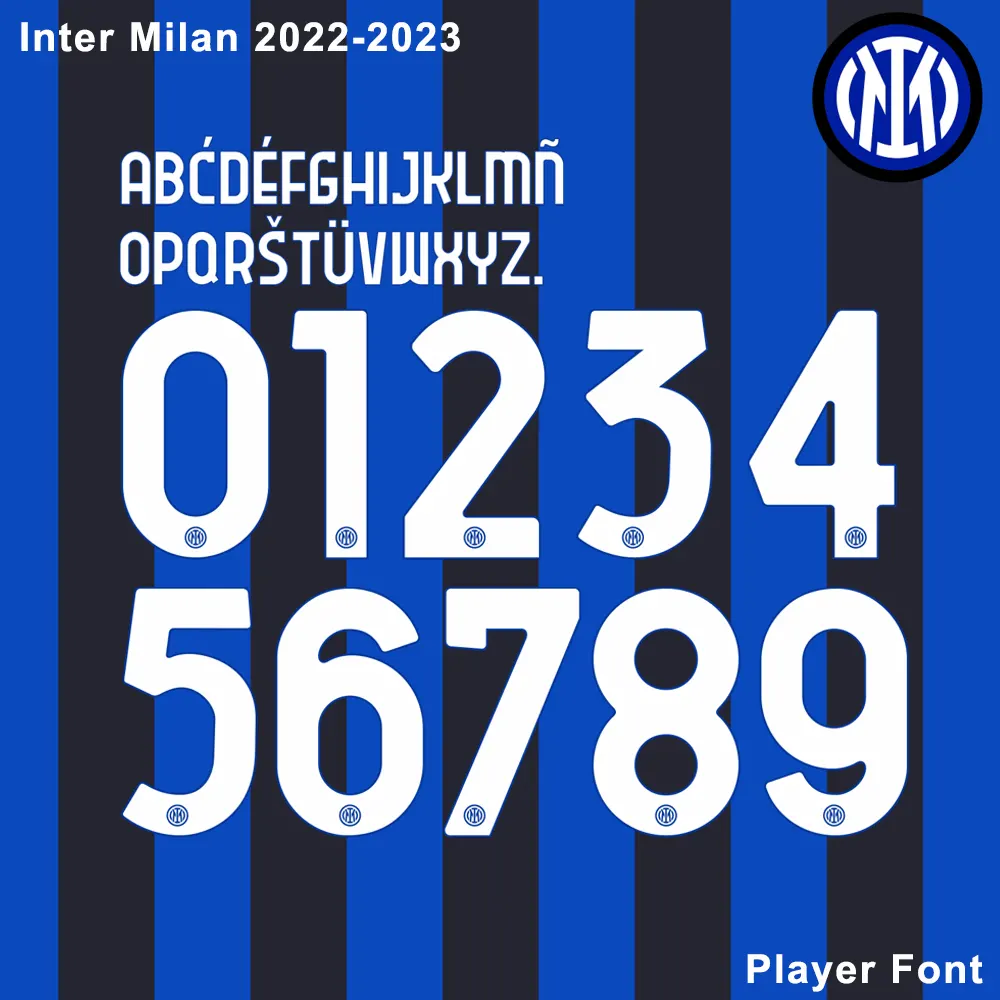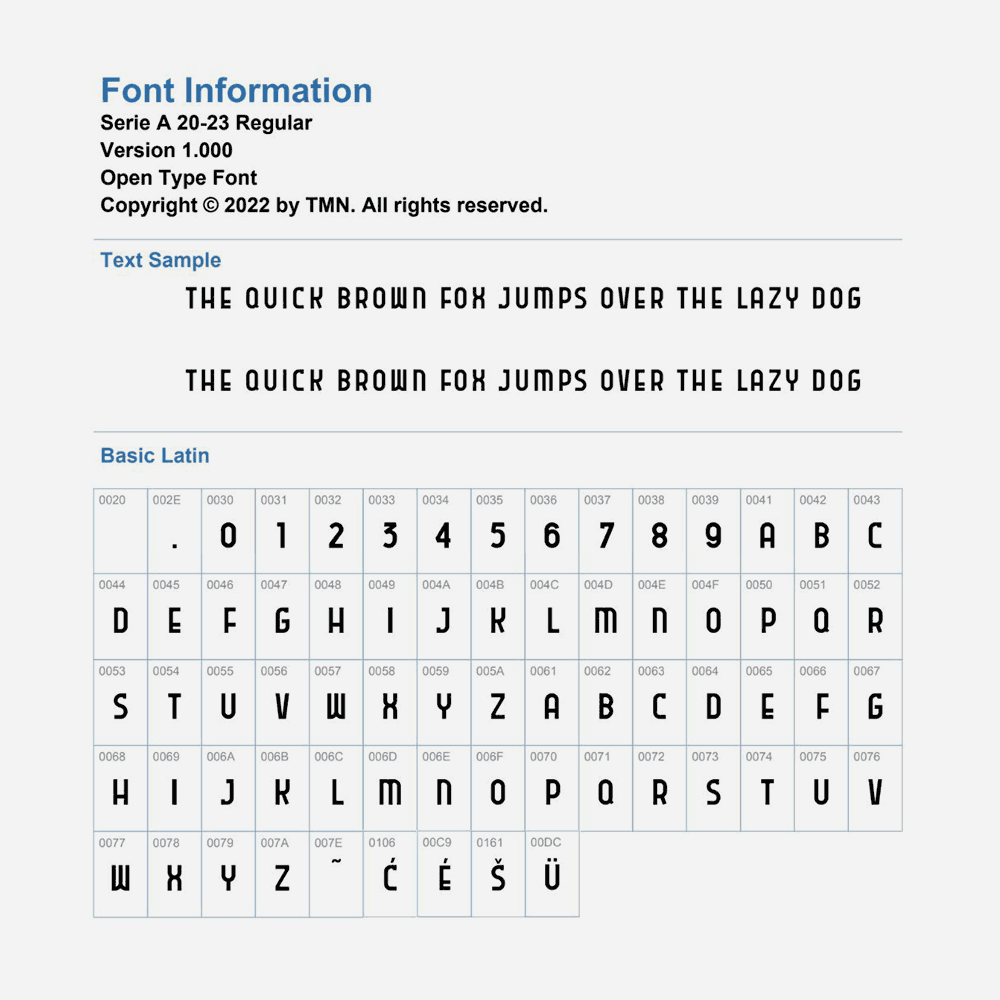
Elevate your designs with the sophisticated Inter Milan 2022-2023 Kit Font.
The 2022-23 Inter Milan kits were a masterclass in modern football aesthetics. This font kit is meticulously traced to capture the sharp verticality and clean lines used on the jerseys of stars like Lautaro Martínez and Nicolò Barella. It is perfect for collectors restoring kits, graphic designers creating match-day visuals, or apparel brands producing custom fan gear.
Complete Character Set: Includes all uppercase letters (A-Z) and the official 0-9 number set used in Serie A and European competitions.